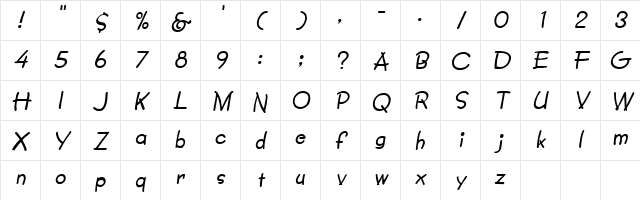
Nicety is a composed and adaptable typeface that performs quietly and consistently across a wide range of design contexts. The slanted form adds forward momentum and visual energy.
Pro Tip: Use Nicety for emphasis, pull quotes, and subheadings where its slanted energy can add rhythm to the layout.